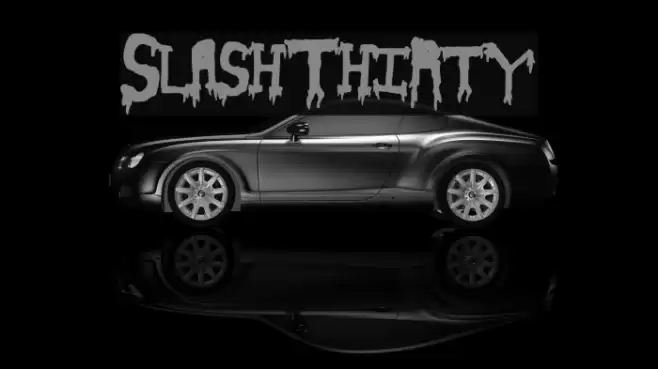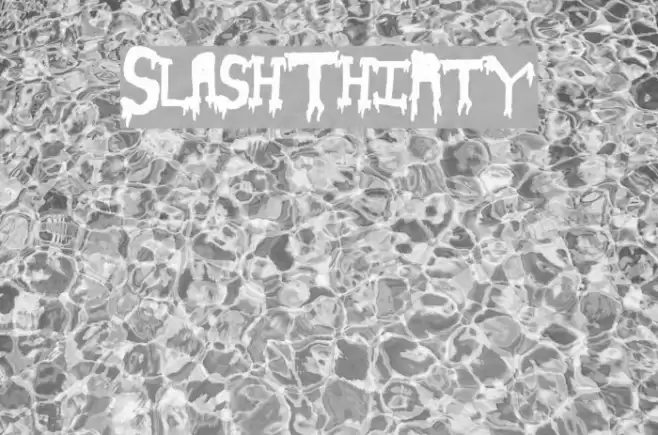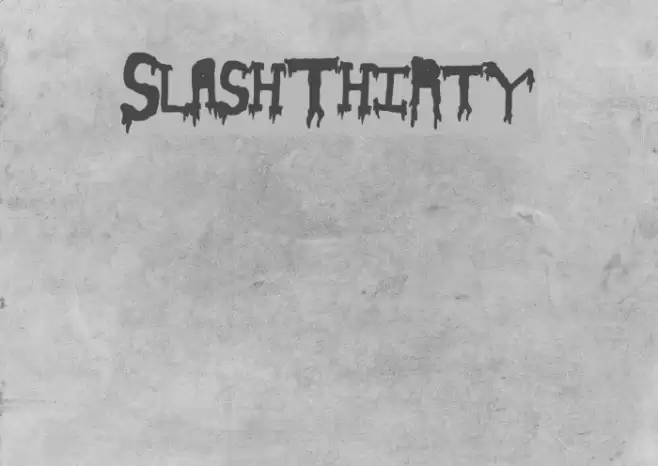
SlashThirty Font
SlashThirty Description
This font features a dramatic and edgy design, characterized by its dripping, irregular edges that give it a haunting and eerie appearance. The uppercase and lowercase letters maintain a consistent style, with each character appearing as if it is melting or dripping. The numbers and special characters follow the same aesthetic, making the font cohesive and visually striking. This font is perfect for projects that require a bold and unconventional look, such as Halloween-themed designs, horror movie posters, or any creative work that aims to evoke a sense of mystery and suspense.
A dripping, eerie font ideal for horror-themed designs from Uncategorized fonts.
- Proposed Projects: Halloween posters, horror movie titles, spooky event invitations, themed merchandise.